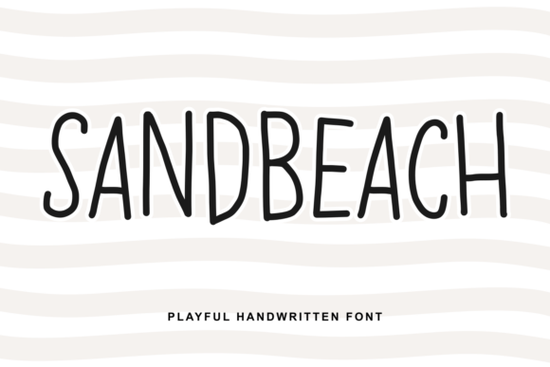
If you are looking for a typeface that brings instant warmth to your layouts without sacrificing readability, the Sandbeach Font is worth considering. Designed to feel like a sunlit day at the coast, this playful handwritten typeface features tall, narrow letterforms that stand out in crowds. Whether you are working on greeting cards, product packaging, or social media graphics, the font introduces a personal touch that looks naturally imperfect yet polished. Because it balances clean lines with casual strokes, it fits well into brands aiming for a relaxed, approachable personality.
Which projects benefit most from a handwriting style like this?
Design choices often depend on the message you want to send, and Sandbeach works exceptionally well for lighthearted content. Imagine creating merchandise for a beachwear brand or designing stickers for a planner business. This font helps capture a carefree spirit that traditional serif or sans-serif fonts cannot replicate easily. Print-on-demand sellers often find it useful for tumblers, tote bags, and wall art because the letters have enough visual weight to remain visible even on smaller prints.
Social media managers can leverage its charm in quote graphics or event invitations. The wide spacing between some characters gives breathing room to the text, making it easier to read when placed over busy backgrounds. It also pairs nicely with simpler body text if you are working on brochures or flyers where you need a clear hierarchy. When used correctly, it ensures your design stands out while still delivering the necessary information clearly to your audience.
Are there similar alternatives if you need variety?
While Sandbeach is excellent for specific vibes, exploring related styles can help you refine your aesthetic further. Sometimes a project might call for a slightly looser structure or a different level of formality. You can browse through various collections to compare options that fit the same category. For instance, visiting the script fonts category allows you to see how many variations exist within the same genre.
If you enjoy the cozy feeling of this typeface, you might want to check out the Cookie Crust family for softer curves or look into Sugar Cookie for a bolder variation. For a different perspective entirely, Belahgio offers a distinct flow that is equally versatile for creative work. Exploring these options ensures you find the exact character needed before committing to a final layout. Each selection provides its own nuances, so testing them in mockups is always recommended.
Practical considerations before finalizing your design